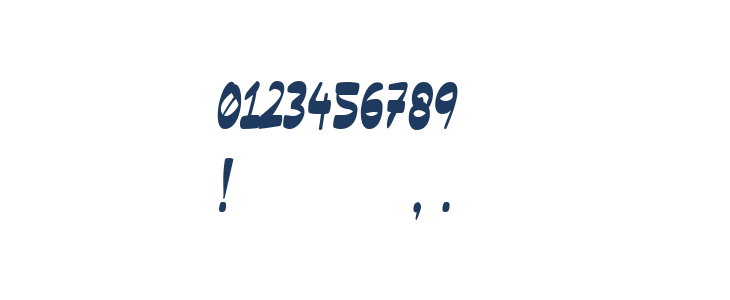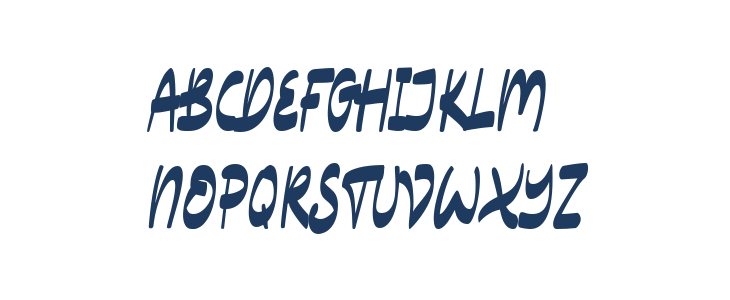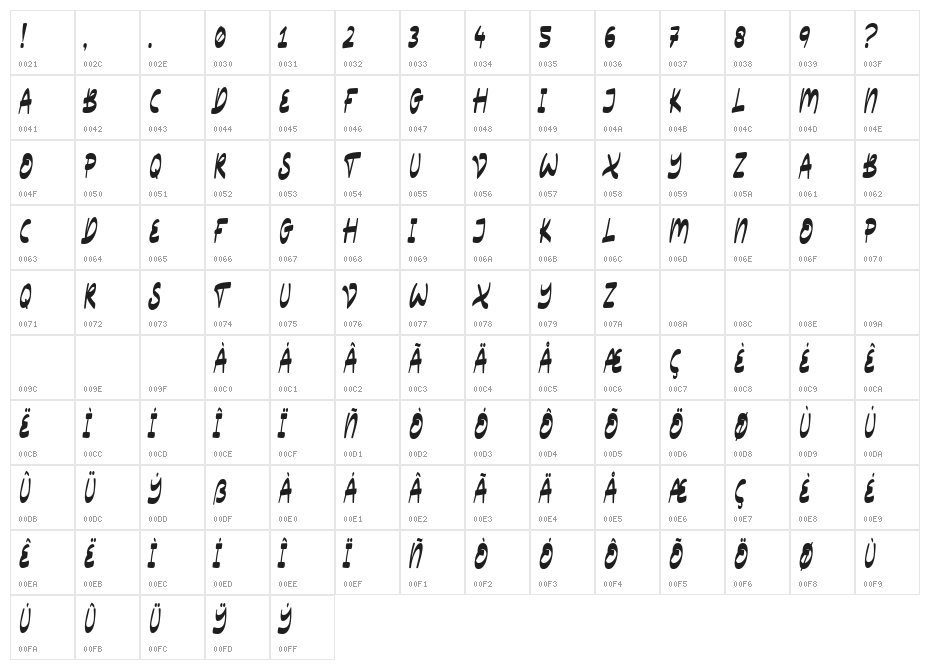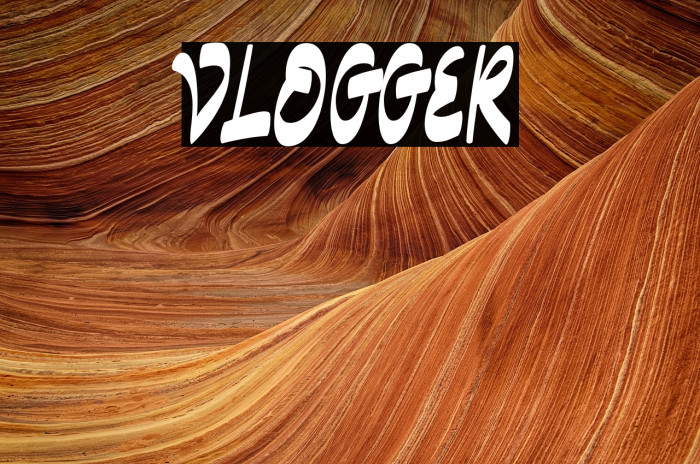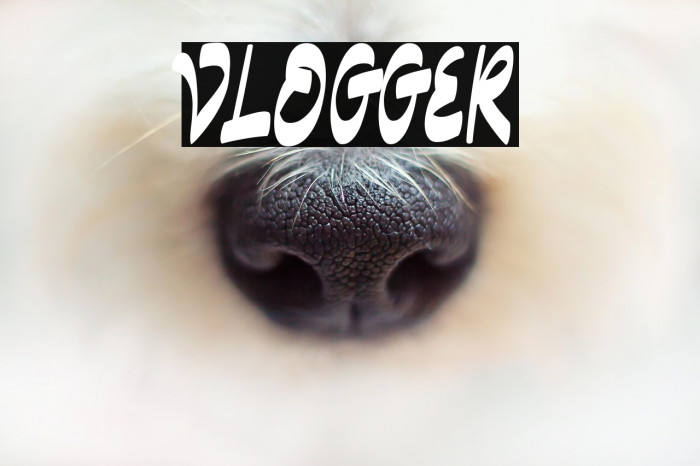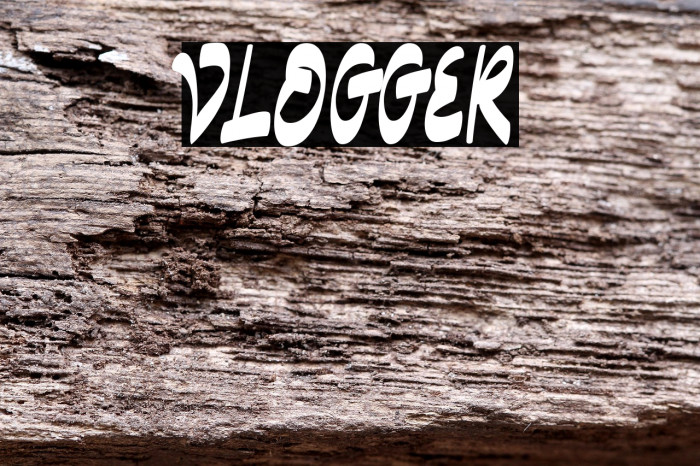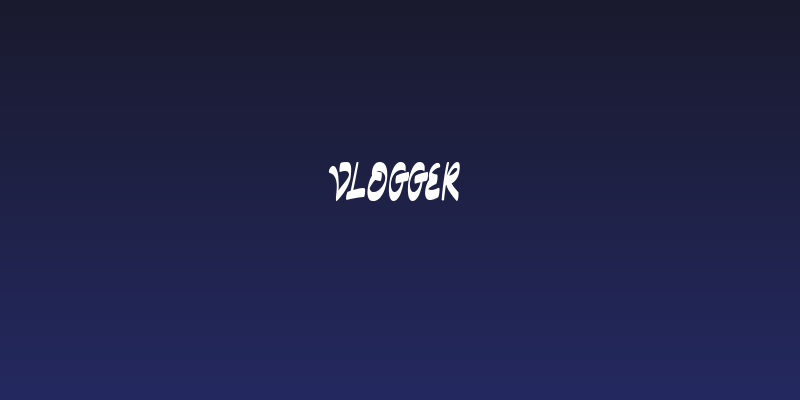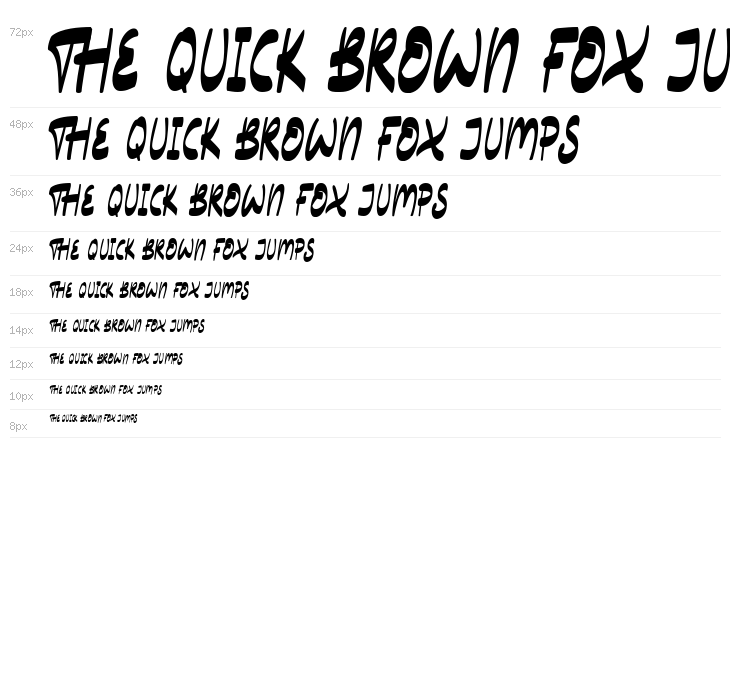
Vlogger Font
Vlogger Description
A bold, handwritten script font with energetic, slightly slanted characters and playful, rounded terminals. The strokes are thick and dynamic, giving a casual yet impactful appearance. The letterforms are consistent in style, with a lively and informal feel.
| Overall Style | Decorative, Modern, Playful |
| Use Case | Logos, Headlines, Social media graphics |
| Proposed Projects | YouTube channel branding, vlogs, social media graphics, posters, informal invitations, merchandise. |